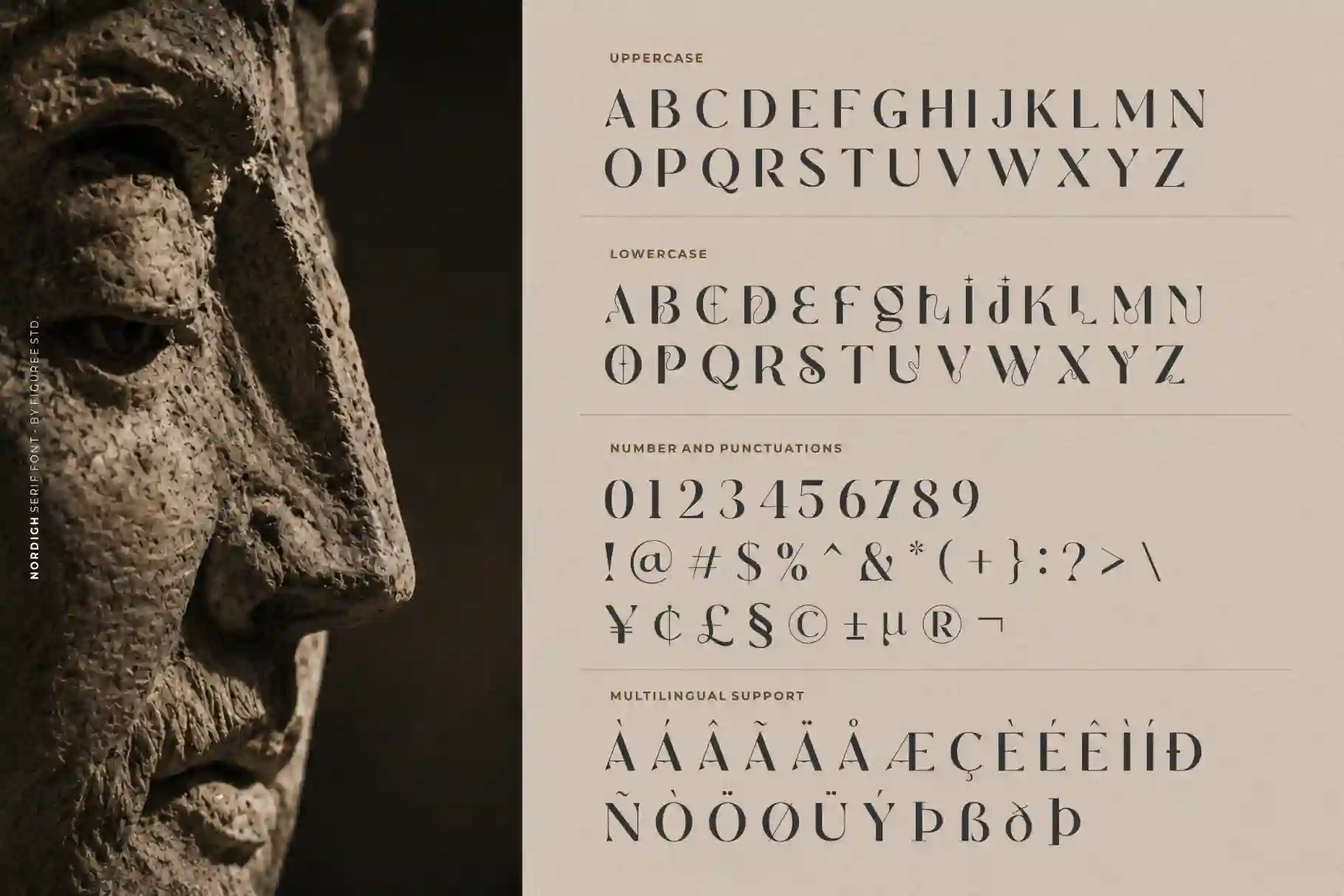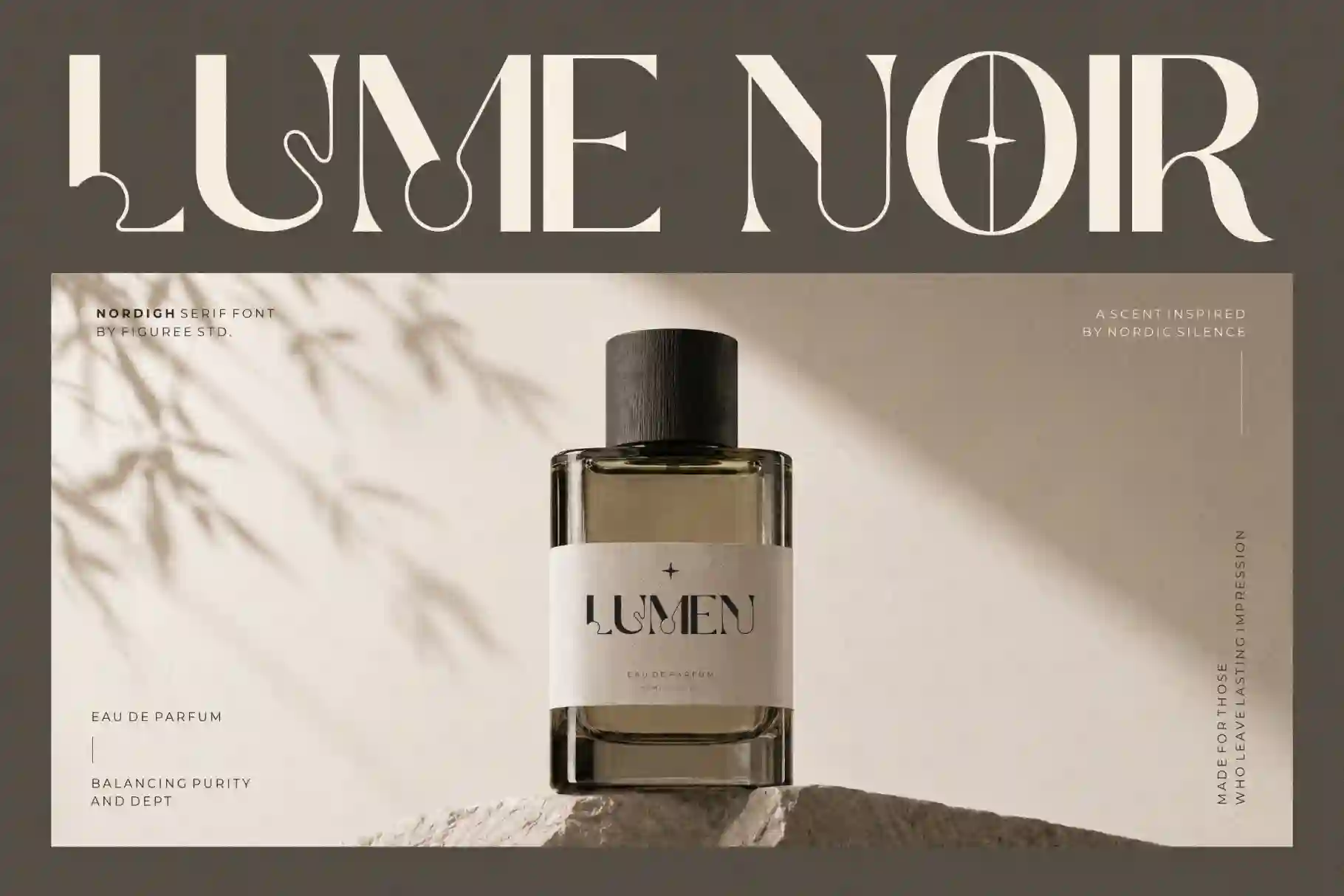
Nordigh – Serif Display Font with Minimalist Nordic Vibes
Typography shapes how audiences feel before they even read a message. Nordigh – Serif Display Font was created for designers who want elegance, sophistication, and timeless Nordic aesthetics in one typeface. With refined letterforms and clean proportions, this serif display font delivers a premium appearance suitable for branding, editorial layouts, luxury logos, packaging, and modern creative projects.
Inspired by Scandinavian minimalism, Nordigh introduces minimalist Nordic vibes into every composition. The balance between classic serif elegance and modern spacing creates a typeface that feels both contemporary and timeless. Whether you are creating product identities, magazine covers, coffee packaging, or cinematic branding, Nordigh helps transform ordinary typography into memorable visual experiences.
Serif Display Font with Minimalist Nordic Character
Nordigh is designed as a serif display font that focuses on simplicity without losing personality. The elegant curves, elongated terminals, and subtle contrast bring a refined atmosphere into every project. Unlike decorative serif fonts that can feel overwhelming, Nordigh embraces minimalism.
This minimalist approach makes the font ideal for luxury brands, editorial headlines, modern cafés, premium packaging, hotel identities, and lifestyle campaigns. The Nordic inspiration creates calm, clean, and sophisticated visuals that continue to perform across print and digital platforms.
The font works beautifully in large titles, hero texts, posters, and packaging where elegant spacing becomes an important visual element.
Key Features of Nordigh – Serif Display Font
Nordigh includes everything needed for professional typography work:
Design Features:
• Elegant serif construction
• Minimalist Nordic aesthetic
• Luxury editorial appearance
• Modern spacing system
• Clean high-end display style
• Italic version for contrast layouts
This serif display font gives designers flexibility while keeping visual consistency across branding systems.
Why Designers Love This Serif Display Font
Creative professionals often search for fonts that look premium without becoming overly decorative. Nordigh achieves that balance perfectly.
Designers love Nordigh because:
- The serif display fontstructure feels modern and timeless simultaneously
• Minimalist Nordic aesthetics work across many industries
• Strong readability even in large headline applications
• Elegant enough for luxury brands but flexible for commercial use
• Italic version expands creative possibilities
• Clean typography improves premium perception
Nordigh adapts easily to logos, beauty branding, cafés, editorials, packaging, hotel identities, photography portfolios, and premium presentations.
Serif Display Font for Luxury Branding Projects
Luxury branding depends heavily on typography. A strong logo may become forgettable if paired with the wrong typeface. Nordigh solves this challenge through its elegant proportions and Scandinavian-inspired simplicity.
This serif display font works exceptionally well for perfume brands, boutique cafés, artisan products, premium food labels, skincare collections, and lifestyle businesses. The minimalist Nordic direction gives brands an upscale feeling while remaining approachable.
Large uppercase applications especially reveal Nordigh’s personality. Hero titles become sophisticated, logos feel intentional, and packaging gains visual value instantly.
Designers seeking timeless branding aesthetics will appreciate how Nordigh maintains elegance without relying on excessive ornamentation.
Serif Display Font for Editorial Layouts and Posters
Editorial design needs fonts that communicate authority while remaining visually attractive. Nordigh performs beautifully in magazines, posters, lookbooks, presentations, and book covers.
Because this serif display font uses balanced spacing and refined shapes, headlines maintain clarity even at large sizes. The italic style introduces additional hierarchy for pull quotes, subtitles, and decorative sections.
Minimalist Nordic layouts benefit greatly from white space, and Nordigh was built with that philosophy in mind. Instead of crowding compositions, it allows typography to breathe naturally.
This creates elegant layouts suitable for creative agencies, architecture studios, interior branding, cafés, hospitality projects, and editorial campaigns.
Font Pairing Ideas for Nordigh
Nordigh becomes even more powerful when combined with complementary fonts. Here are recommended pairings from Figuree Studio: